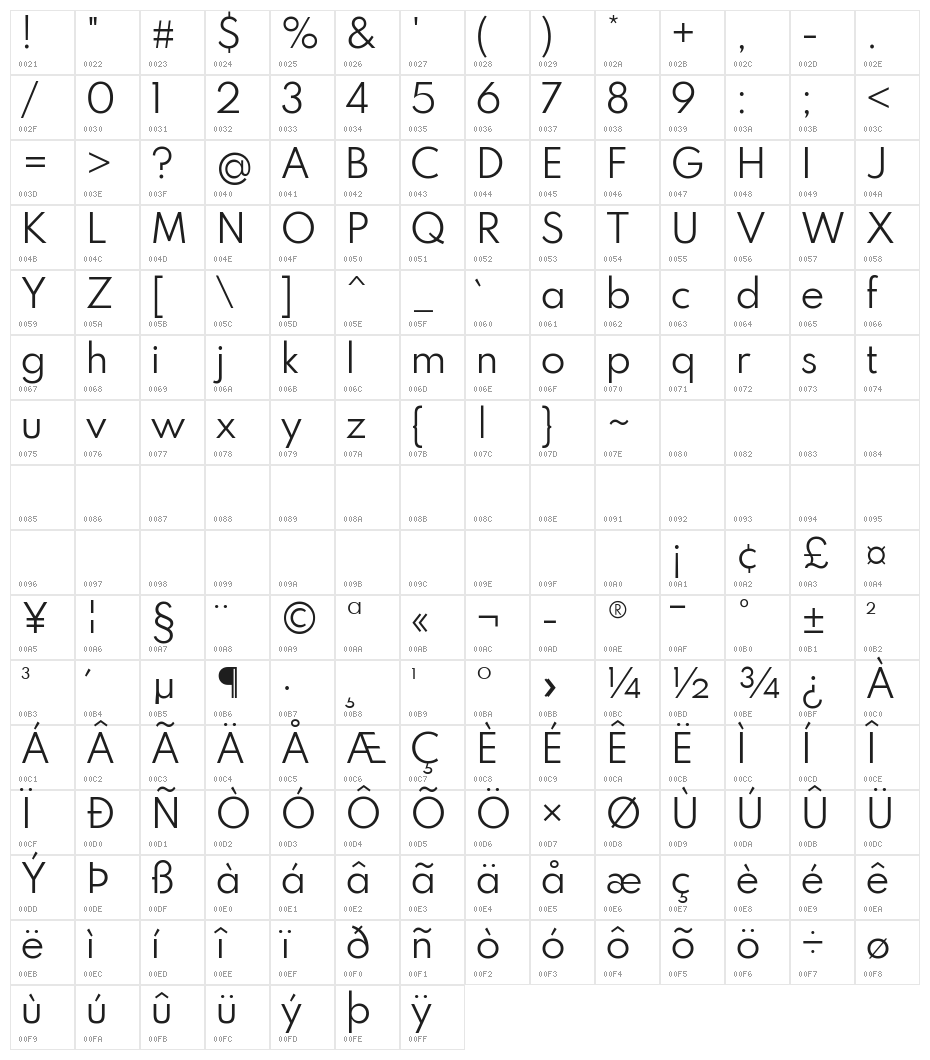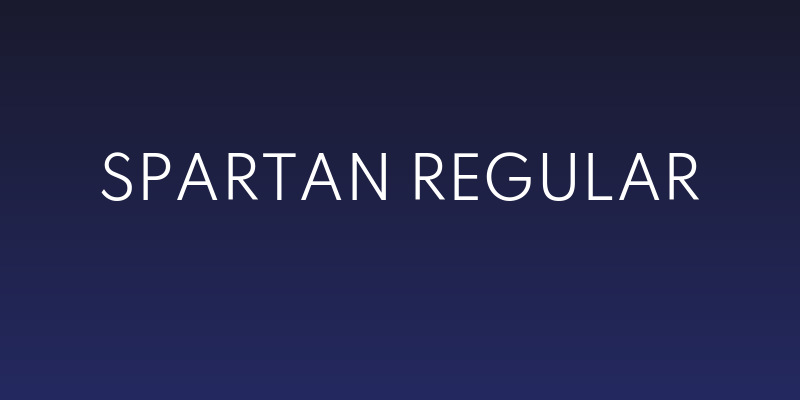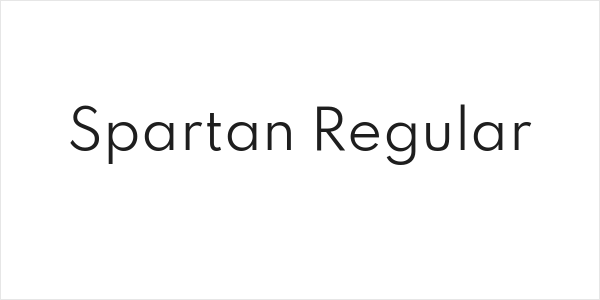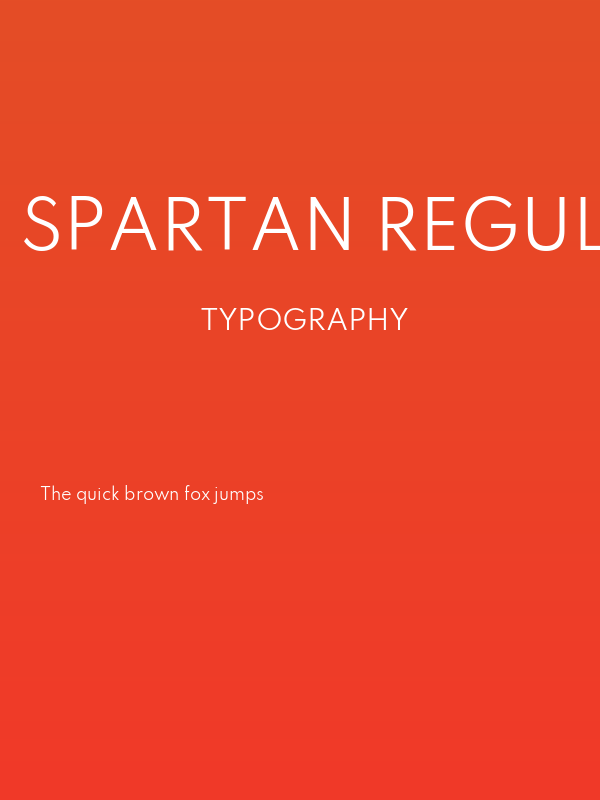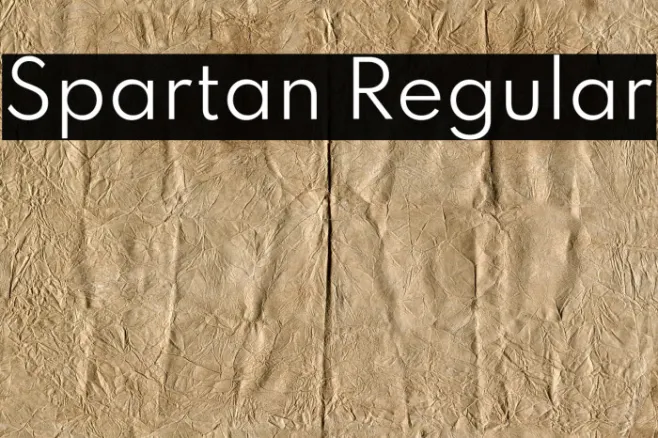
Spartan Regular Font
Spartan Regular Description
This font features a clean and modern sans-serif design, characterized by its geometric shapes and uniform stroke widths. The letters are well-proportioned, with a consistent height and width that creates a harmonious appearance. The uppercase letters are bold and assertive, while the lowercase letters maintain a friendly and approachable feel. The numerals are clear and easy to read, making them suitable for a variety of applications. The special characters are designed with the same attention to detail, ensuring they blend seamlessly with the rest of the typeface. Overall, this font exudes a sense of simplicity and elegance, making it versatile for both digital and print media.